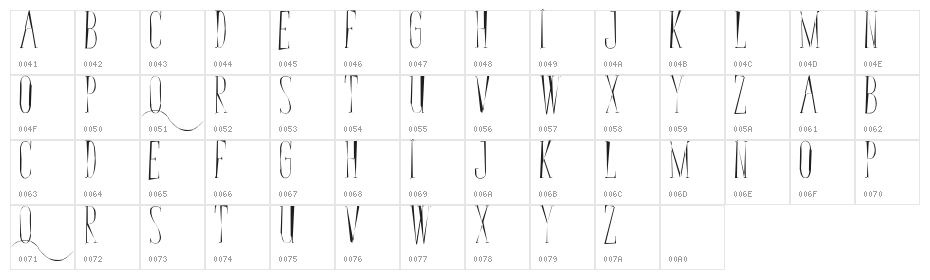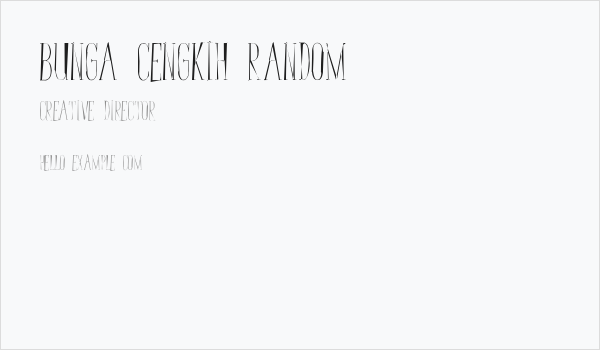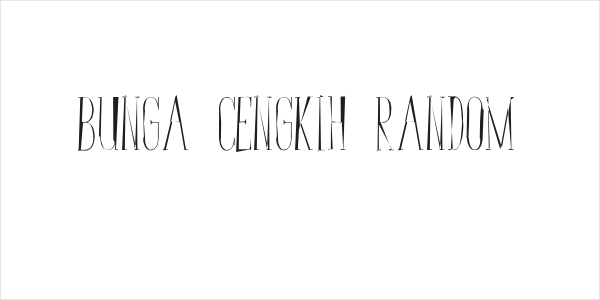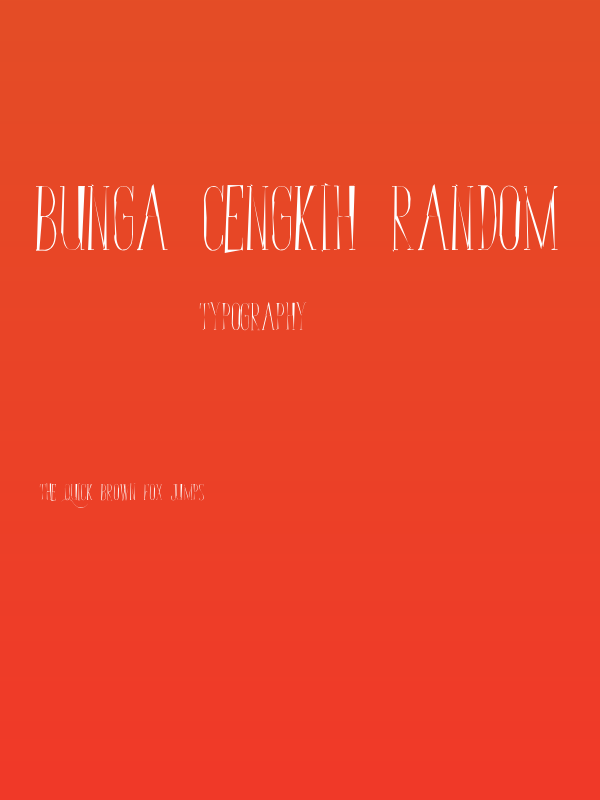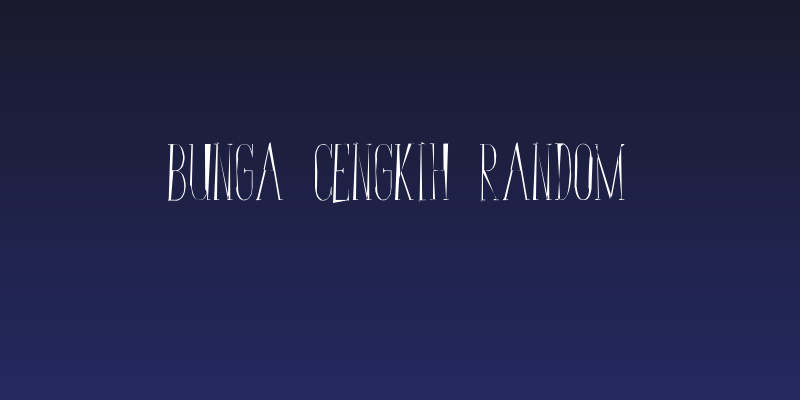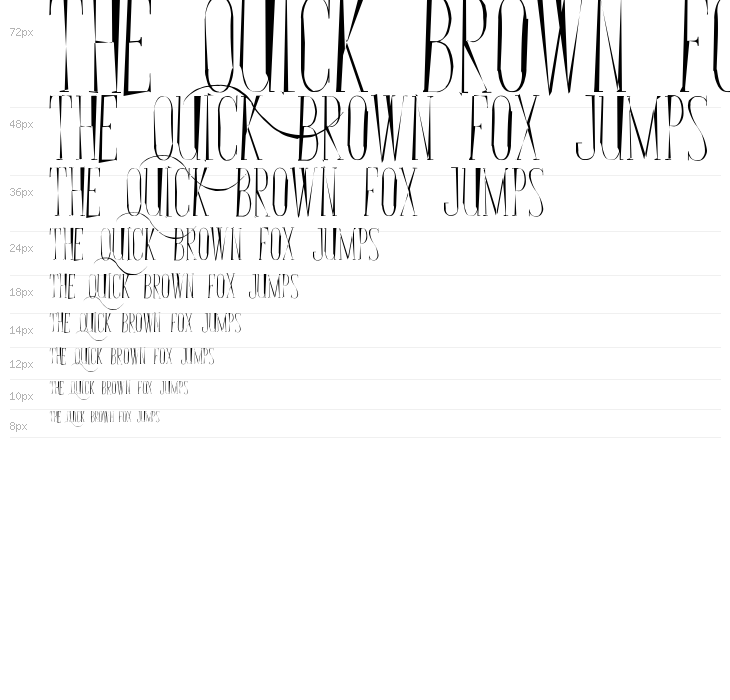
Bunga Cengkih Random Font
Bunga Cengkih Random Description
This font features a highly decorative and artistic style, characterized by its elongated and narrow letterforms. The strokes are a mix of thin and thick lines, creating a high contrast that adds a dramatic flair to the overall appearance. The serifs are sharp and pronounced, contributing to its elegant and sophisticated look. This font is particularly striking due to its unique blend of modern and classic elements, making it stand out in any design. The uppercase letters are especially tall and slender, while the lowercase letters maintain a consistent style, ensuring readability despite the decorative nature. The numerals and special characters are designed to match the overall aesthetic, providing a cohesive look across all text elements.
| Proposed Projects | Ideal for luxury branding, fashion magazines, wedding invitations, and artistic posters. |